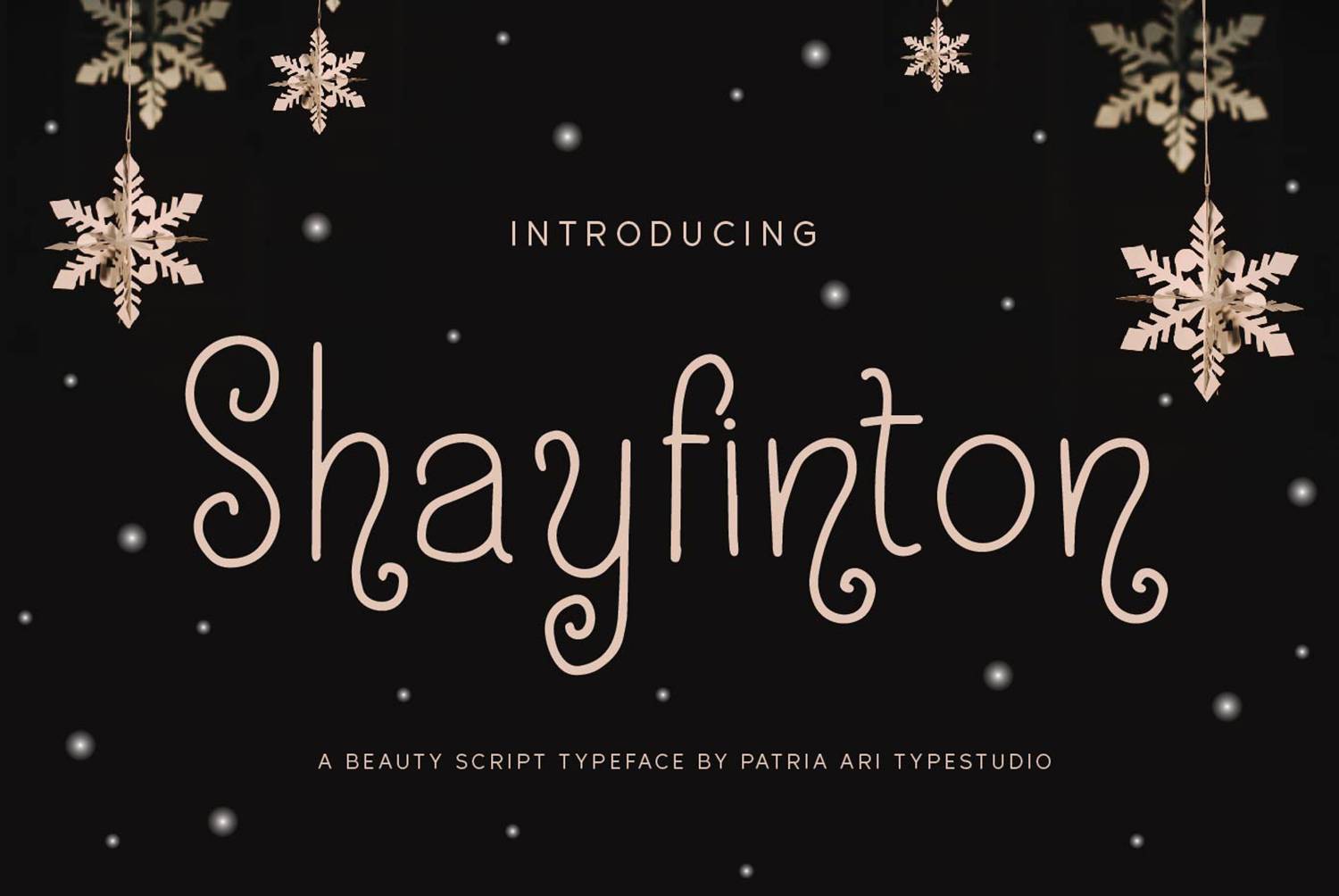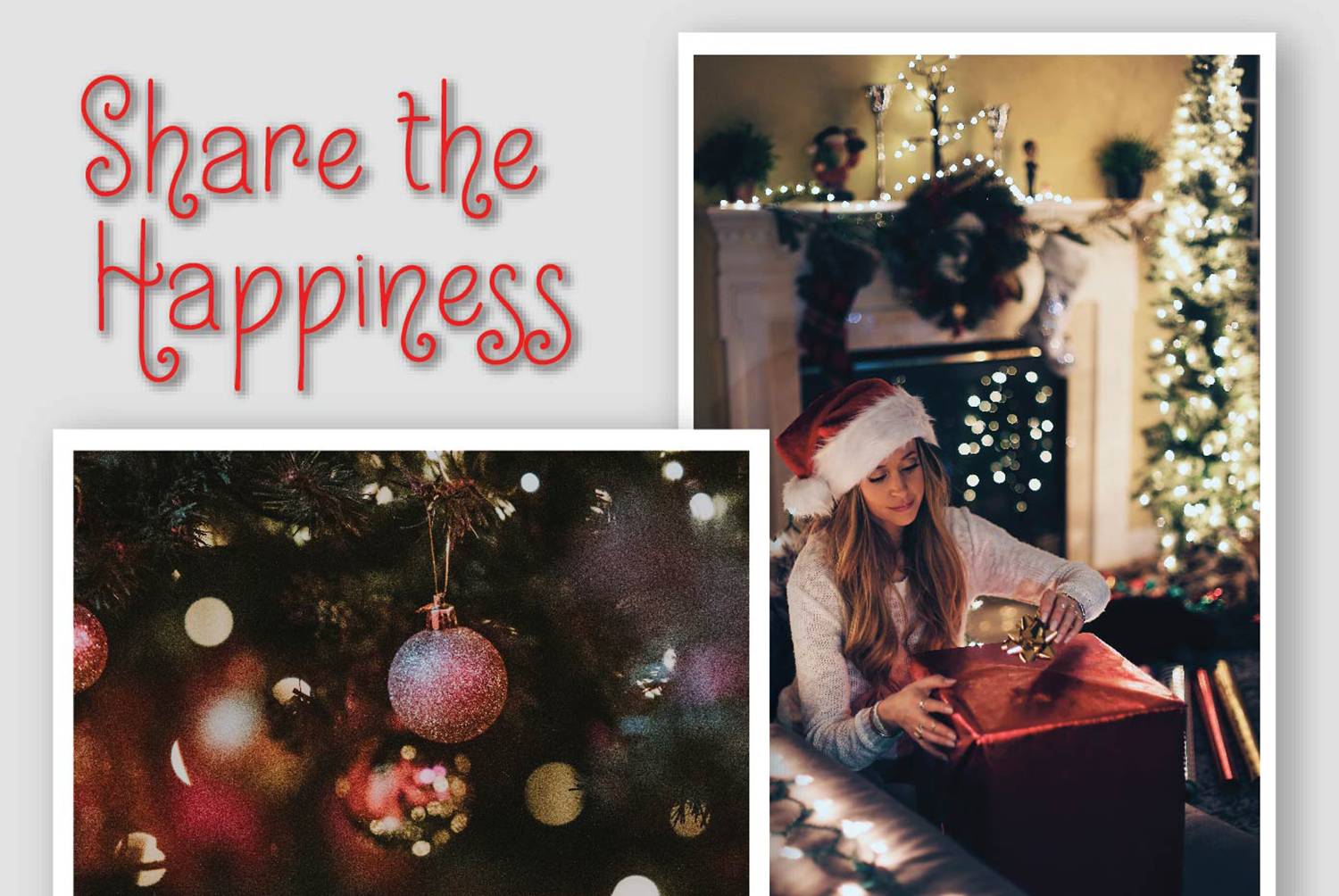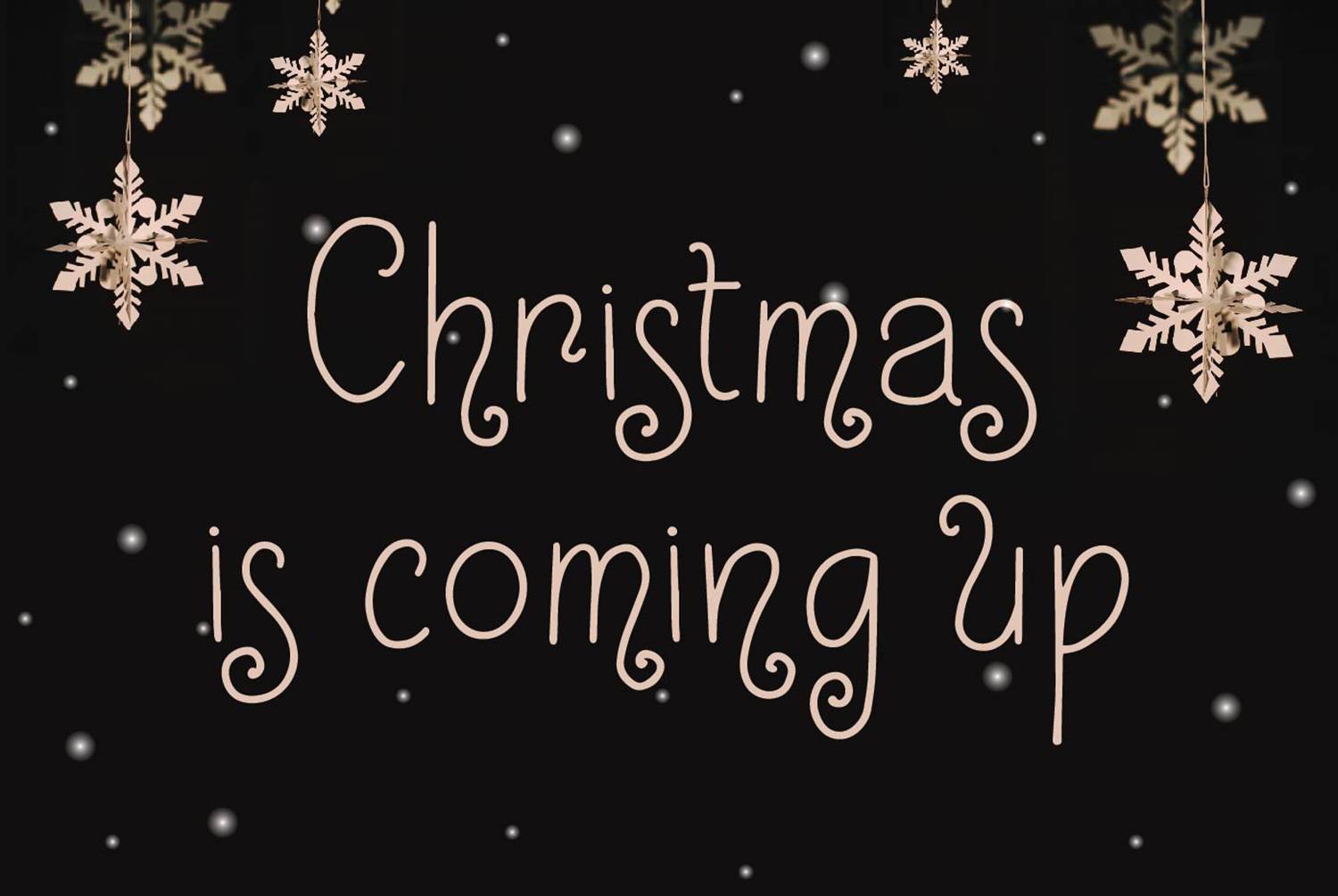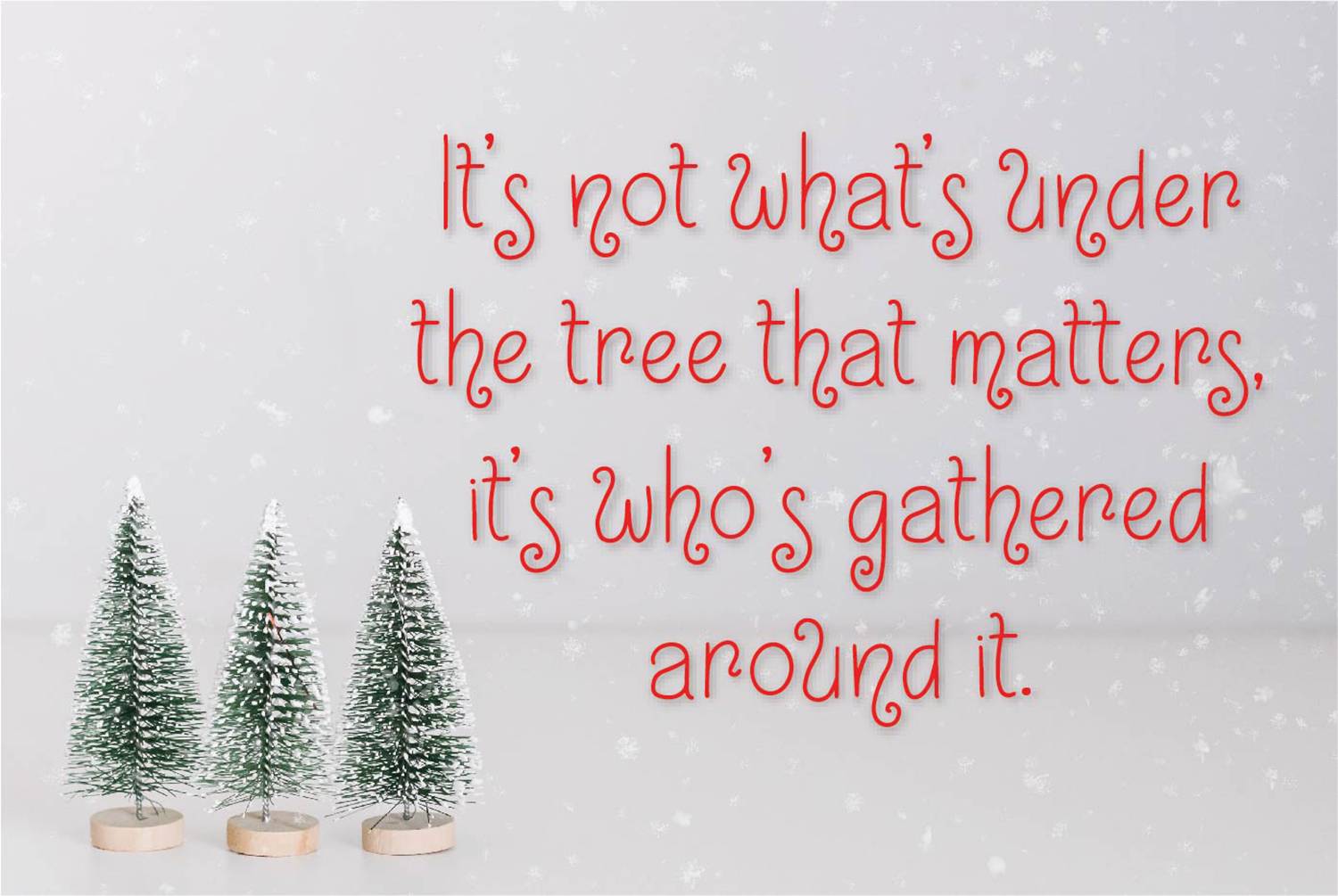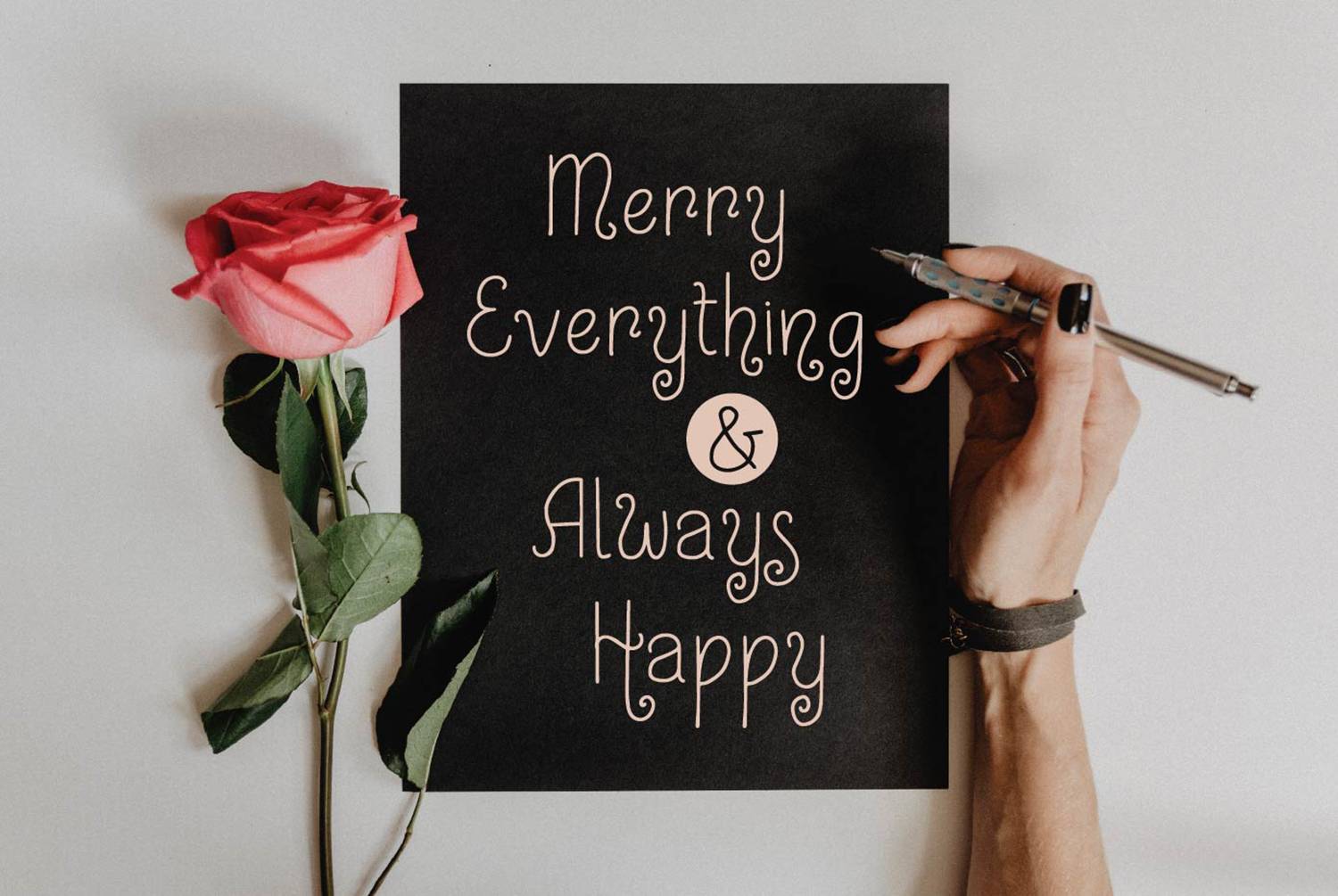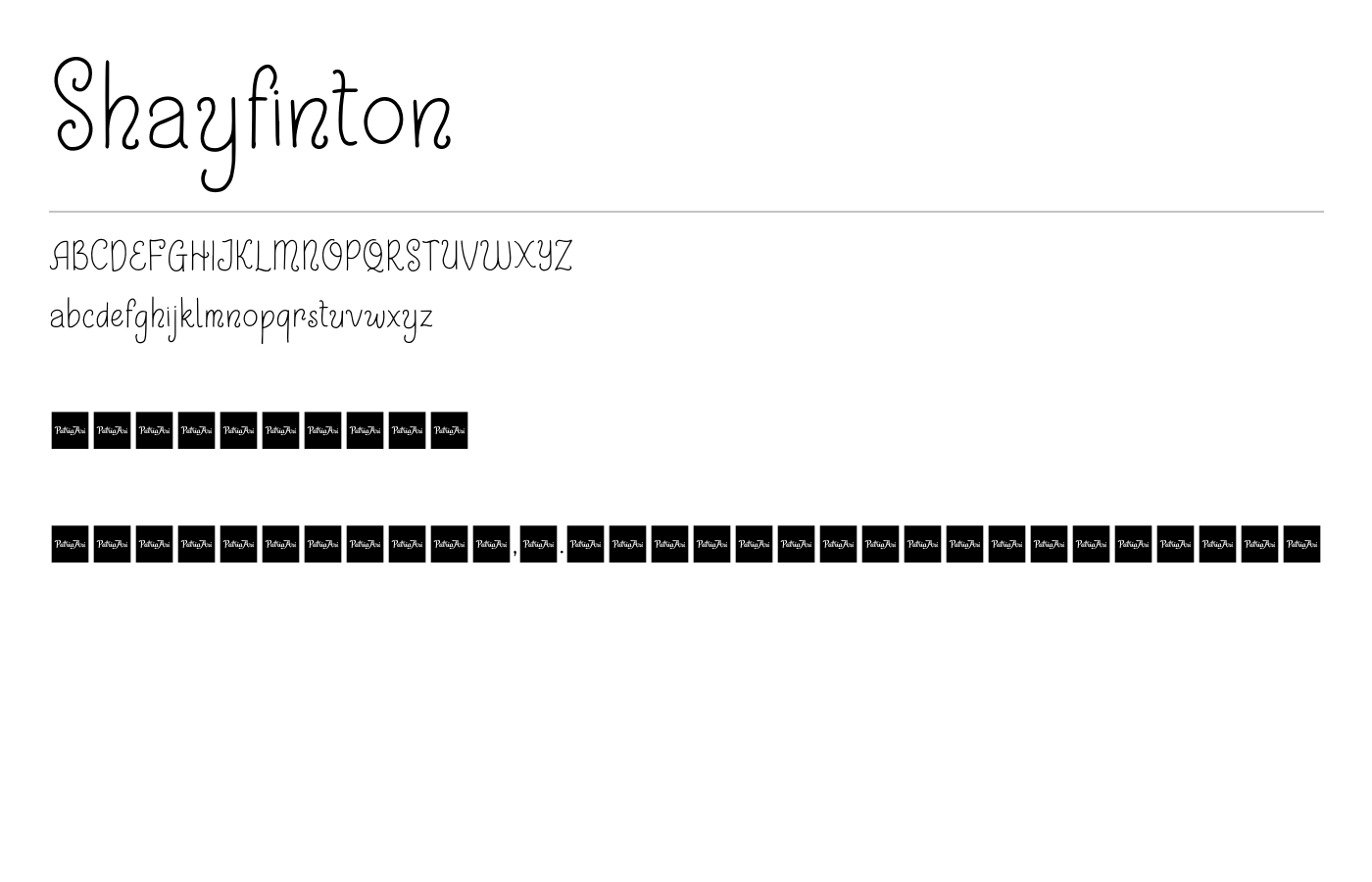
Shayfinton is a delicate, whimsical serif font with a handwritten charm, characterized by its thin strokes and playful curls on select letters. Its tall, narrow letterforms and light weight give it a graceful, airy feel, perfect for creative projects that want to convey friendliness and elegance. This font works best for invitations, greeting cards, and creative branding where a unique, approachable style is desired.
Shayfinton Font
About Shayfinton Font
| Font family | Shayfinton Font |
| Designer | Patria Ari Wijonarko |